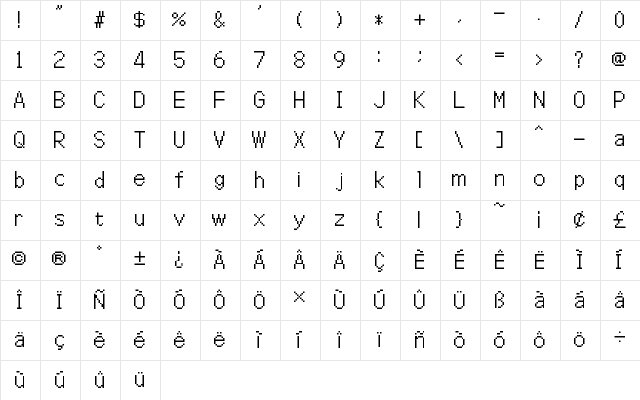
TLOZ Phantom Hourglass Regular
Designer: David Fens
Design Context for TLOZ Phantom Hourglass
TLOZ Phantom Hourglass is a composed and adaptable typeface that performs quietly and consistently across a wide range of design contexts.